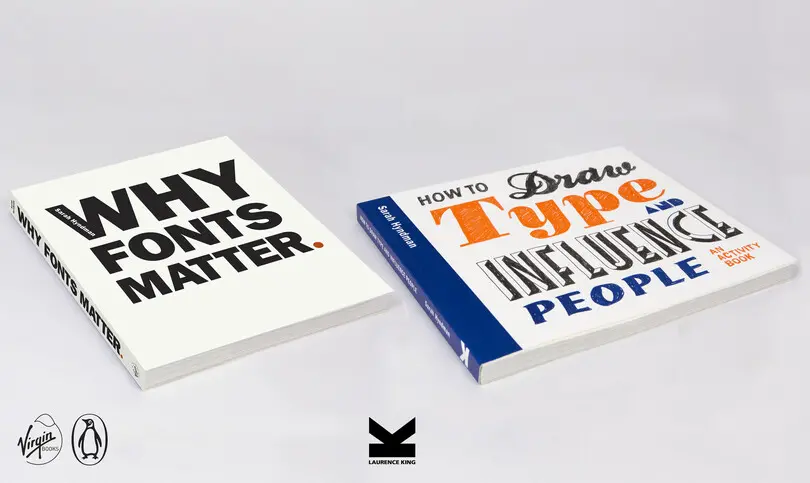
Creative Characters S1 E7: Sarah Hyndman: Celebrating typography, one taste (???) at a time.
“ Every single one of us interacts with type, with fonts, and with lettering every single day of our lives. So I’m really keen to make it accessible, make it fun and empower everybody to talk about it. ”
Sarah Hyndman.
Our guest in episode seven was Sarah Hyndman, founder of Type Tasting and the author of several books, including Why Fonts Matter and How to Draw Fonts and Influence People.
You’d be hard-pressed to find someone who loves type more than Sarah, even here at Monotype. She has devoted her professional life not only to studying and learning about type, but evangelizing the value and wonder of type to audiences large and small. She says she is “on a mission to change the way we think and talk about typography by … making it entertaining and relevant with humour, a dash of theatre and lashings of audience participation.”
Sarah’s work focuses heavily on the psychological aspects of type, and how the shape of a letter can influence our senses of taste and smell, trigger emotions and memories, and sometimes play tricks on our expectations and perception. “One of the things I really want to do is make typography exciting and kind of sexy beyond the design, beyond the world of academia or specialists,” she tells host and Monotype Senior Brand Manager Rebecca Price in the episode. “Every single one of us interacts with type, with fonts, and with lettering every single day of our lives. So I’m really keen to make it accessible, make it fun and empower everybody to talk about it.”
Sarah’s work also gives her insights into people. After all, a person’s opinion of a typeface, or more specifically their emotional and sensory response to a typeface, says a lot about who they are and the experiences they’ve had.
“I think from talking to lots of different people, it’s made me love type even more,” she says. “It’s is such a joyous thing, especially to speak to children or people that are so far beyond the design world and who have this moment of revelation when you ask them a question and they say something like, okay, what kind of pub do you think is under a sign like this? Or what kind of shop? Would you go on a date with this font? Can you tell me its personality? Can you tell me it’s backstory?
“It’s fascinating to see how many associations everybody has. Typefaces don’t come with instructions and back history when you just see them out there in the wild, and I think as a designer that has been a really, really good bit of learning for me